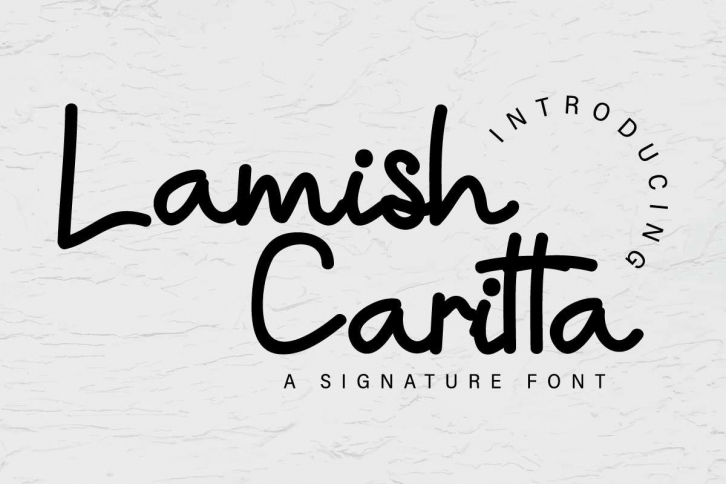
Lamish Caritta is a great font that was designed by EdricStudio. Imagine the amount of combinations you can create using this font! The archive is 6.59 MB and it was released on June 10, 2020. Lamish Caritta looks beautiful on wedding invitations, greeting cards, logos, posters, labels, t-shirt designs, logos, business cards and is perfect for use in ink or watercolor works, fashion, magazines, packaging and food menus, children's books and more!